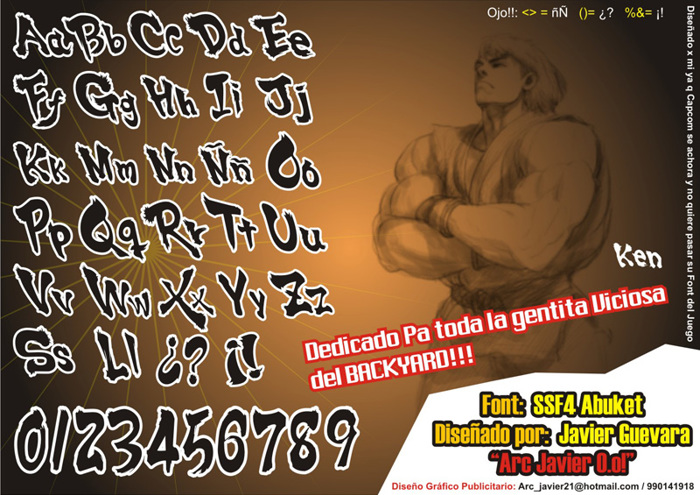
SSF4 ABUKET Font
SSF4 ABUKET Font is a Street Fighter font and was created on . Since then, it has been downloaded 6,571 times and added to 87 collections. 15 people have liked SSF4 ABUKET Font and given it a thumbs up.
This font has letters for Super Street Fighter IV, which is a fighting video game created in 2010.